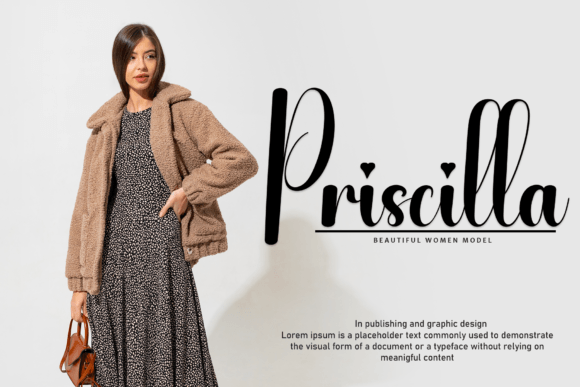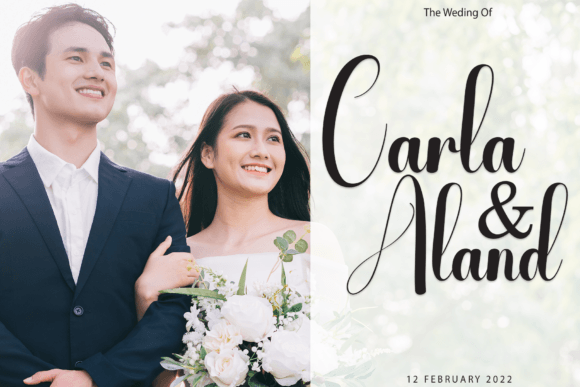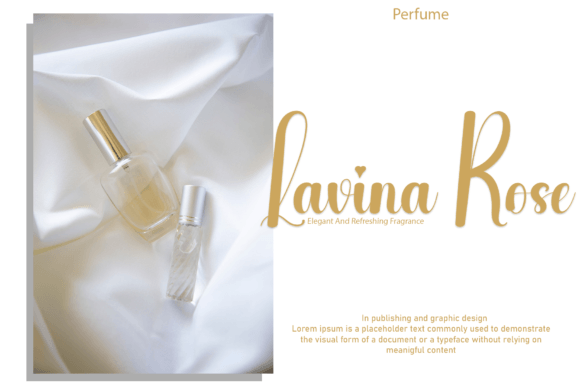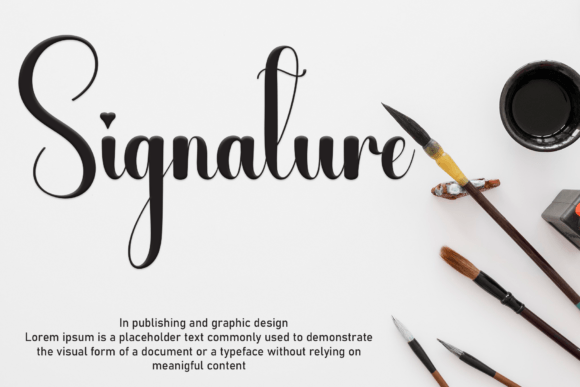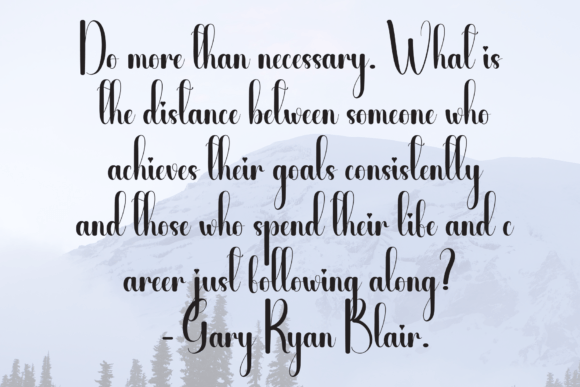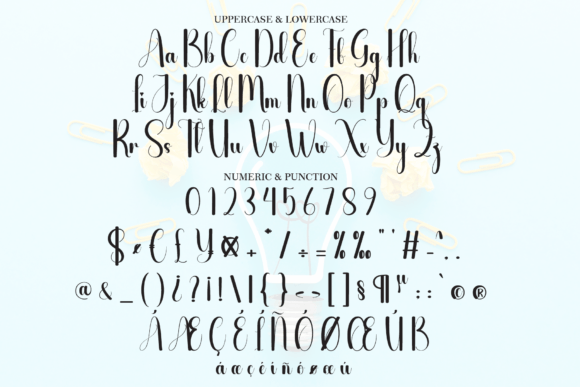
Introducing Creative Font: The Sweet and Friendly Handwritten Font for Your Design Needs
Are you a designer or crafter looking for a font that can add a touch of personality to your designs? Look no further than Creative Font, a sweet and friendly handwritten font that’s perfect for a variety of projects. In this article, we’ll take a closer look at Creative Font, its features, and how you can use it to elevate your designs.
What is Creative Font?
Creative Font is a beautiful, handwritten font that’s fresh, neat, and full of character. Its sweet and friendly style makes it ideal for designs that require a personal touch. Whether you’re creating wedding invitations, greeting cards, or any other type of design, Creative Font is the perfect choice.
Key Features of Creative Font
So, what makes Creative Font so special? Here are some of its key features:
- Handwritten style: Creative Font has a beautiful, handwritten style that’s perfect for adding a personal touch to your designs.
- Fresh and neat: The font is clean, fresh, and easy to read, making it perfect for a variety of design projects.
- Fun and playful: Creative Font has a fun and playful vibe that’s perfect for designs that require a bit of whimsy.
- Versatile: This font is versatile and can be used for a variety of design projects, from wedding invitations to social media graphics.
Use Cases for Creative Font
So, how can you use Creative Font in your designs? Here are some use cases to get you started:
- Wedding invitations: Creative Font is perfect for wedding invitations, adding a touch of romance and whimsy to your designs.
- Greeting cards: This font is also great for greeting cards, adding a personal touch to your messages.
- Social media graphics: Use Creative Font to add a touch of personality to your social media graphics, from Facebook posts to Instagram stories.
- Branding and packaging: This font can also be used for branding and packaging, adding a touch of whimsy to your brand’s identity.
Tips for Using Creative Font
Here are some tips for using Creative Font in your designs:
- Pair with other fonts: Creative Font pairs well with other fonts, so don’t be afraid to experiment with different combinations.
- Use for headings and titles: This font is perfect for headings and titles, adding a touch of personality to your designs.
- Experiment with colors: Try using Creative Font in different colors to add a pop of personality to your designs.
In conclusion, Creative Font is a sweet and friendly handwritten font that’s perfect for designers and crafters looking to add a touch of personality to their designs. With its fresh and neat style, this font is ideal for a variety of projects, from wedding invitations to social media graphics. By following the tips outlined in this article, you can use Creative Font to elevate your designs and add a touch of whimsy to your brand’s identity.